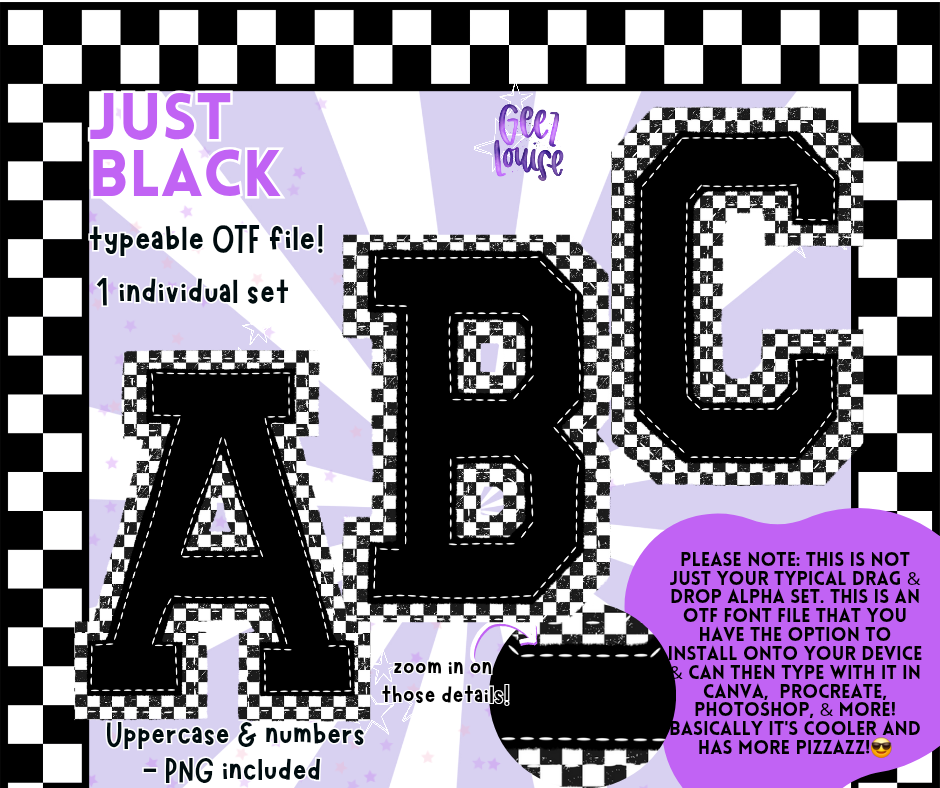
Just Black OTF Alpha Font – Typeable Font with Checkerboard Detail for Digital Designs
Keep it bold. Keep it classic. Just Black is your go-to OTF alpha font for all things edgy, clean, and high-impact. With a subtle checkerboard pop, this digital alpha set is perfect for shirt designs, tumbler wraps, stickers, and everything in between.
Whether you're adding flair to your fall projects or just vibing with a neutral grunge look, Just Black blends effortlessly with any aesthetic. Designed by Geez Louise, this set is ready to make your creations pop—without screaming for attention.